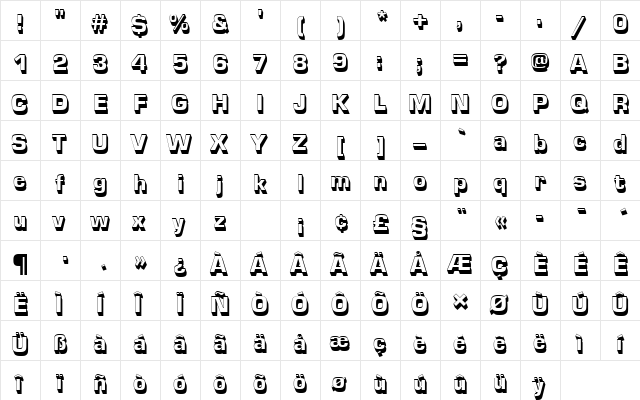
EurostileTBlaSh1 Regular
Design Context for EurostileTBlaSh1 Typeface
EurostileTBlaSh1 is a composed and adaptable typeface that performs quietly and consistently across a wide range of design contexts.